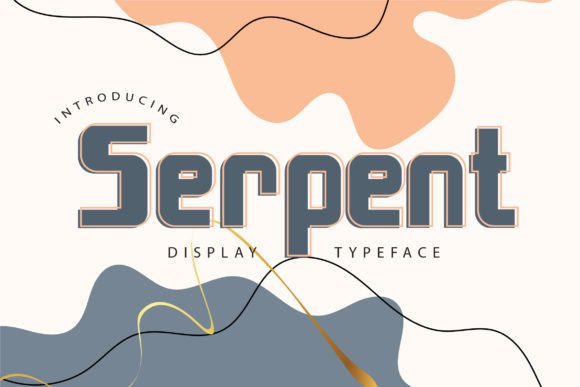
Serpent: A Bold, Modern Display Font That Elevates Your Creative Vision
When it comes to typography, the right font can make all the difference. Serpent is more than just a typeface—it's a statement. This modern display font has a sleek, dynamic look that draws attention and adds a touch of sophistication to any design. Whether you're working on a personal project or crafting a professional brand, Serpent offers a unique visual identity that stands out from the crowd.
Unlike many standard fonts, Serpent isn’t just about style—it’s about impact. Its clean lines and subtle curves give it a contemporary feel while maintaining readability. It works well in both digital and print formats, making it a versatile choice for a wide range of applications.
Where and When to Use Serpent
Serpent is ideal for situations where you want to capture attention without sacrificing clarity. Think of it as the go-to font for headlines, logos, and other visual elements that need to command attention. For example, if you're designing a website header or a social media post, Serpent can add a modern edge that makes your content more engaging.
It also shines in branding. If you're launching a new product or building a personal brand, Serpent can help create a memorable visual identity. Its boldness and elegance make it perfect for logos, business cards, or even packaging designs. The font doesn’t just look good—it tells a story about your brand's personality.
Real-World Applications of Serpent
For creators and designers, Serpent can be a game-changer. Imagine you're working on a poster for an art exhibition. Using Serpent for the title gives it a modern, artistic feel that aligns with the theme of the event. It’s not just about looking good—it’s about creating a cohesive visual language that resonates with your audience.
Entrepreneurs and small business owners can benefit from Serpent in various ways. If you’re creating marketing materials for a new service or product, using this font in your ads or brochures can help differentiate your brand from competitors. It adds a level of professionalism and creativity that can set your business apart.
Bloggers and content creators often use Serpent for titles and headings. Whether you're writing a blog post about lifestyle trends or sharing tips on productivity, a strong, stylish font can make your content more visually appealing. It helps guide readers through your content and keeps them engaged.
How Different Users Can Benefit From Serpent
Serpent isn't one-size-fits-all, but it's adaptable enough to suit a variety of needs. For educators, it can be used in presentations or handouts to make information more visually interesting. A teacher might use it for a lesson title or a key concept to draw students' attention and make learning more dynamic.
Freelancers and independent professionals can use Serpent to enhance their portfolios. Whether they're a graphic designer, photographer, or writer, adding a touch of style to their work samples can make a lasting impression on potential clients. It shows that they pay attention to detail and understand the importance of visual appeal.
Even everyday users can find value in Serpent. If you're creating a custom gift, a birthday card, or a DIY project, using this font can elevate the overall look and feel. It adds a personal, thoughtful touch that makes your creation stand out.
Things to Consider Before Using Serpent
Before diving into using Serpent, it's important to think about how it fits into your specific project. While it's a powerful font, it may not be suitable for every situation. For instance, if you're designing a document that requires a lot of body text, Serpent might be too stylized and could affect readability.
Also, consider the context in which it will be used. A highly stylized font like Serpent might not be appropriate for formal documents or traditional settings. However, in creative or modern environments, it can be a strong asset. Always test the font in different sizes and formats to ensure it looks good in all scenarios.
Another consideration is accessibility. Make sure that the font is legible, especially for people with visual impairments. While Serpent is designed to be clear, it's always a good idea to pair it with a complementary font for body text when necessary.
How Serpent Enhances Visual Communication
Typography is more than just aesthetics—it's a form of communication. Serpent helps convey tone, mood, and message in a way that other fonts might not. Its modern design can communicate innovation, while its elegant curves can suggest refinement and class.
For example, a tech startup might use Serpent in its branding to signal forward-thinking and creativity. A luxury brand might use it in its advertising to evoke sophistication and exclusivity. The font adapts to the message it's supporting, making it a valuable tool for visual storytelling.
Conclusion: Make Your Ideas Shine With Serpent
Serpent is more than just a font—it's a design element that can transform your work. Whether you're a creator, entrepreneur, educator, or hobbyist, incorporating Serpent into your projects can add a fresh, modern look that sets your ideas apart. Its versatility, style, and impact make it a valuable addition to any toolkit.
So next time you're working on a design, a presentation, or a branding project, consider giving Serpent a try. You might be surprised at how it elevates your work and makes your ideas stand out. After all, the right font can turn a good idea into something truly unforgettable.